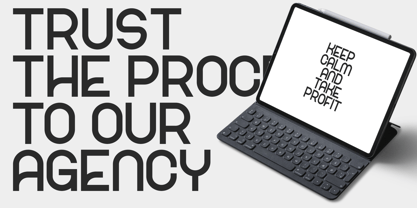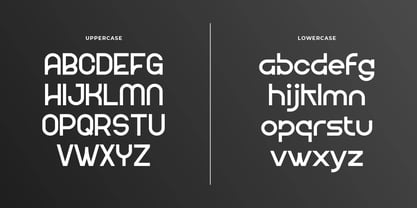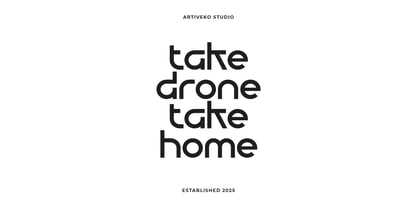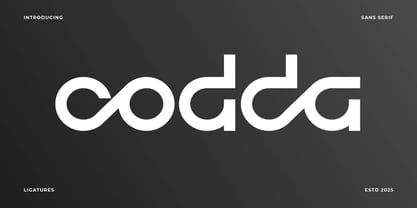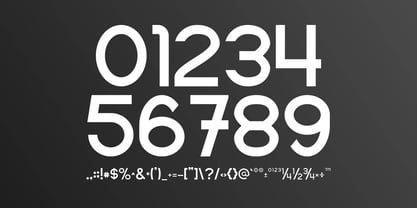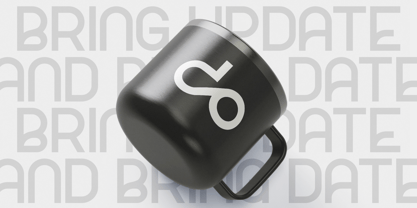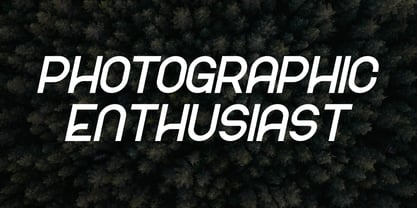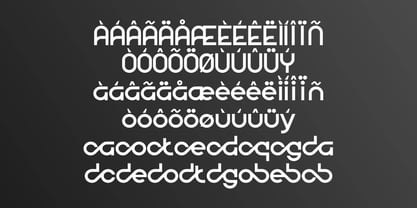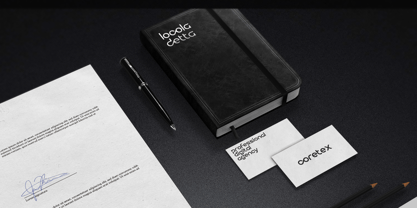
Codda
by Artiveko
The Codda Font Family was designed by Iwan Alwan and published by Artiveko. Codda contains 2 styles and family package options.
Codda is a modern logo font designed to elevate your branding with clean lines, distinctive forms, and timeless versatility. Crafted for bold identities, Codda blends geometric balance with creative character, making it the perfect choice for logos, monograms, packaging, and headlines that demand attention.
Unlike generic sans fonts, Codda introduces subtle curves and sharp edges that set your design apart while maintaining professional appeal. Its sleek letterforms adapt seamlessly across industries—whether you're building a fashion label, tech brand, or personal portfolio, Codda gives your typography a signature feel.